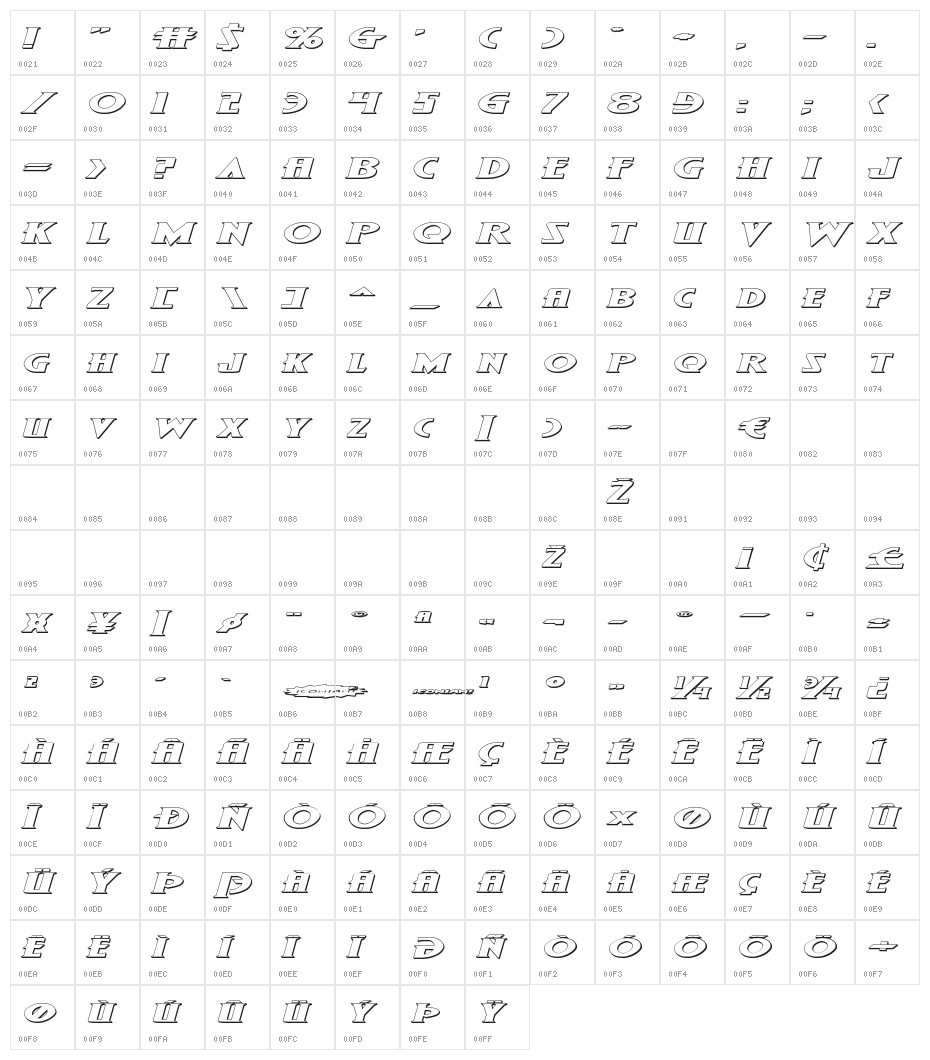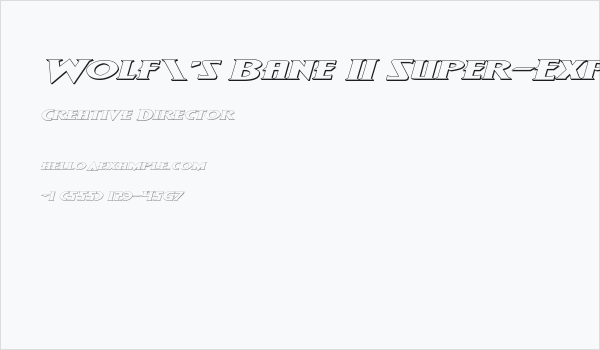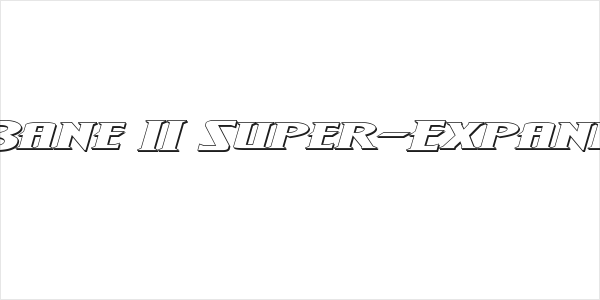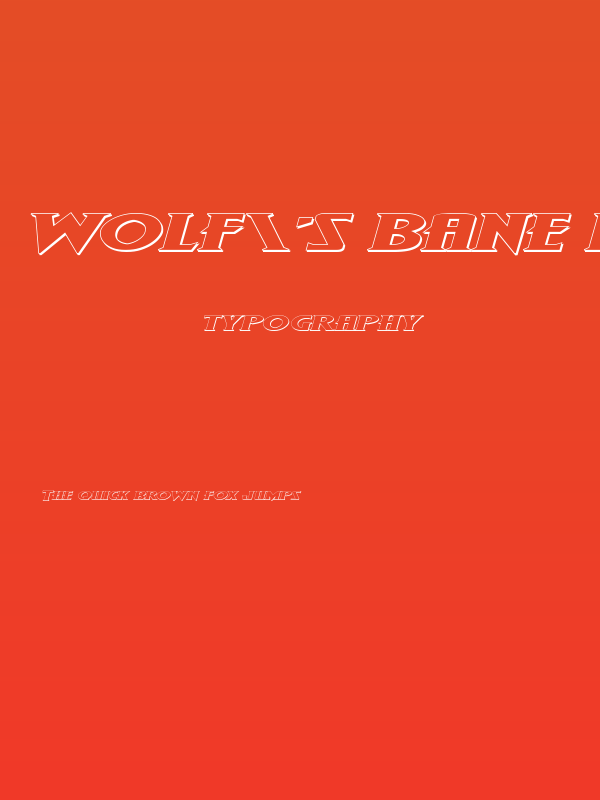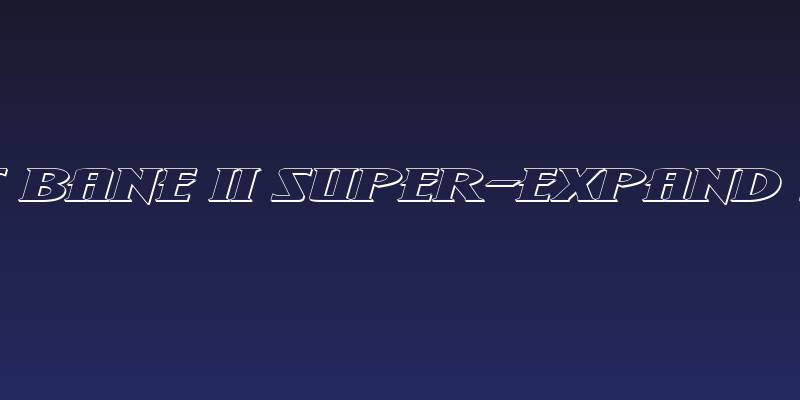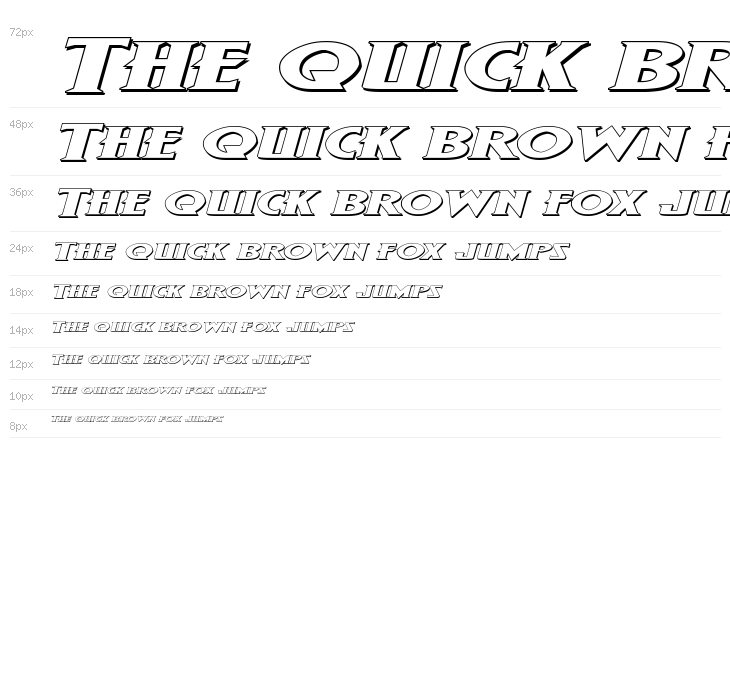
Wolf's Bane II Super-Expand 3D Italic Font
Wolf's Bane II Super-Expand 3D Italic Description
This font features a bold, three-dimensional style with an italic slant, giving it a dynamic and impactful appearance. The characters are outlined, creating a sense of depth and movement. The design is highly stylized, with sharp angles and a futuristic aesthetic. The uppercase letters are particularly striking, with a strong presence that commands attention. The numbers and special characters maintain the same bold and italicized characteristics, ensuring consistency across all elements. This font is ideal for projects that require a modern and edgy look, such as gaming titles, movie posters, or branding for tech companies.
| Proposed Projects | Ideal for gaming titles, movie posters, tech branding, and any project needing a modern, edgy look. |